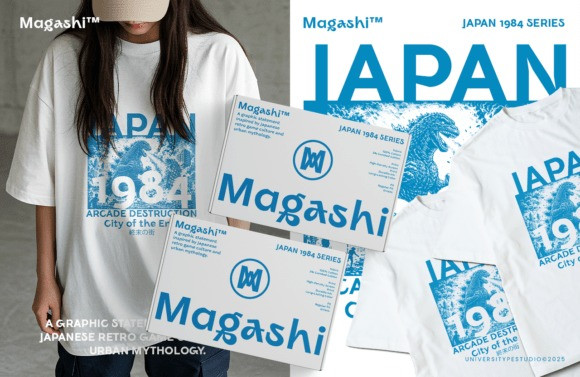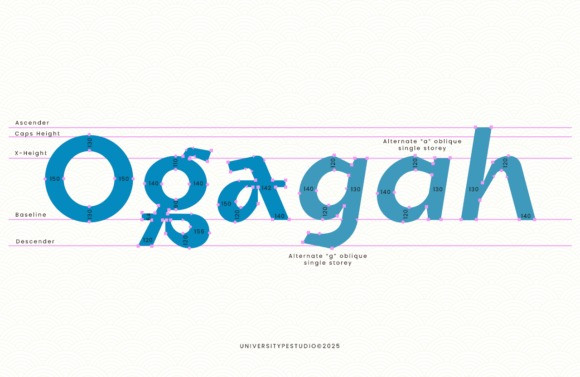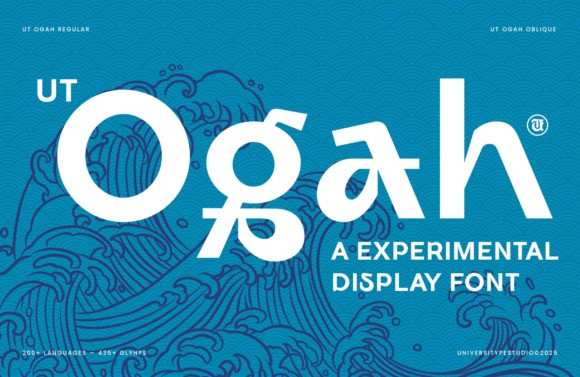
UT Ogah Font
UT Ogah Font the avant-garde display font conceived for capturing attention and transcending norms. Its architecture, an amalgamation of fixed geometric contours and supple, fragmented shapes, constructs letters with an air of dynamism, vivacity, and purposeful irregularity. Its unique rhythm is choreographed by delicate fissures and tender terminals, making it the perfect tool for designs that demand audacity and dominance. Ogah is specifically devised to exude its full charisma in larger sizes, ideally augmenting headlines, branding endeavors, poster design, apparel graphics, and voguish digital compositions. This font comes packed with Regular and Oblique styles, enabling designers to oscillate seamlessly between a sense of steadfastness and movement while preserving a uniform typographic demeanor. With its arsenal of over 435 glyphs, extended Latin language assistance, alongside a plethora of OpenType features encompassing ligatures, stylistic alternates, ordinals, numerators, denominators, superscripts, subscripts, and various figure configurations such as Old Style, Lining, Proportional, Tabular, Ogah is the embodiment of typographic versatility and inventiveness.